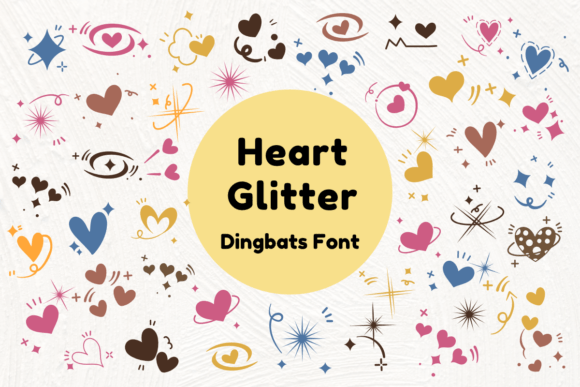
Heart Glitter Font
Heart Glitter is a charming dingbats font filled with adorable hearts, sparkles, swirls, eyes, and romantic motifs.
Each glyph is a hand-drawn symbol, perfect for embellishing love notes, greeting cards, wedding decor, journals, or Valentine’s Day designs. Whether you’re adding a magical touch to a scrapbook or designing romantic printables, this font offers a wide variety of cute and expressive icons.
Add instant charm, whimsy, and emotion to any project without needing to draw each element by hand—just type and transform your layout with sparkly heart energy.